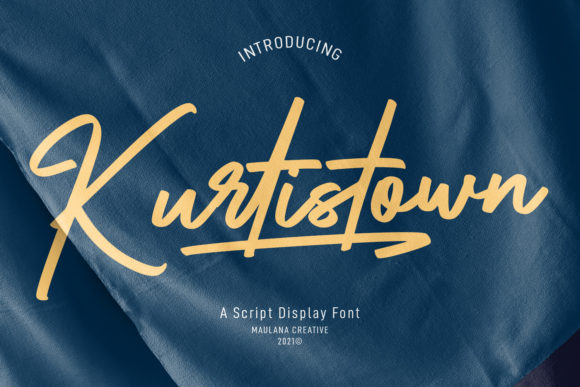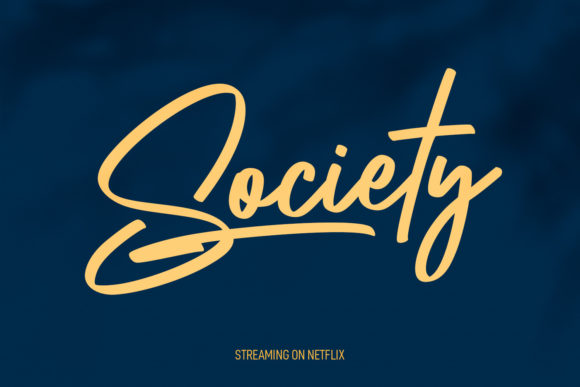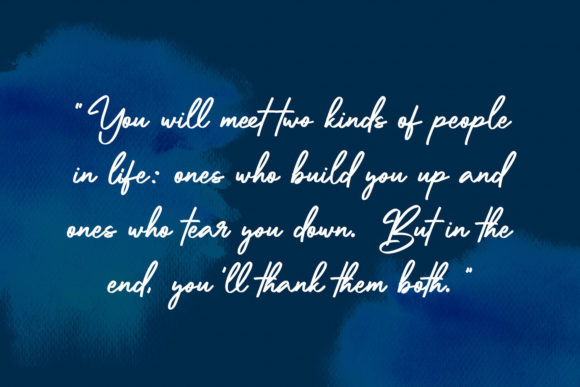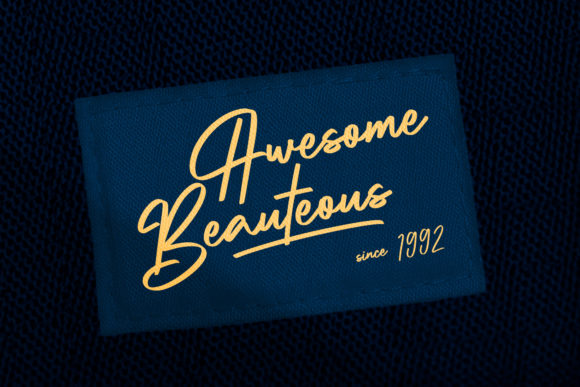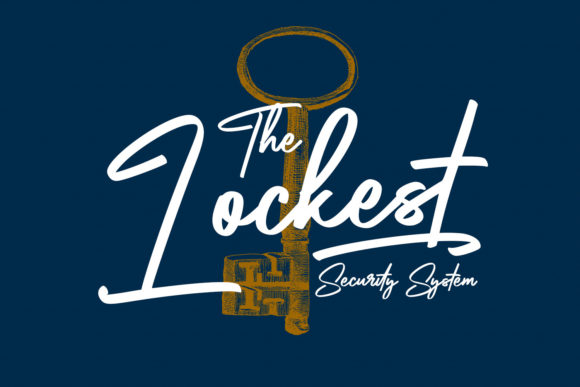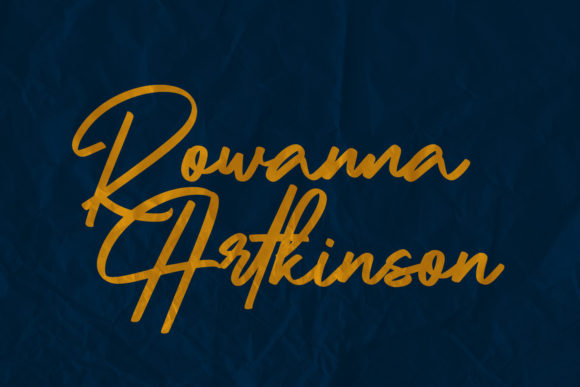
Kurtistown Script Font
About Kurtistown Script Font
Kurtistown Script is a lovely script font featuring charming, playful characters that seem to dance along the baseline. Add this font to your most creative ideas, and notice how it makes them stand out!